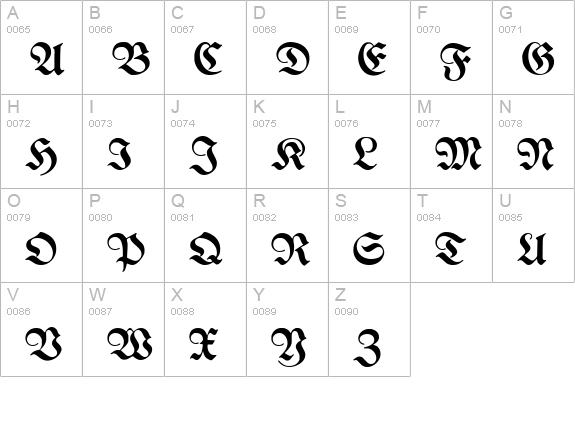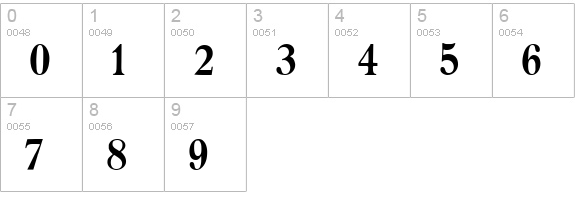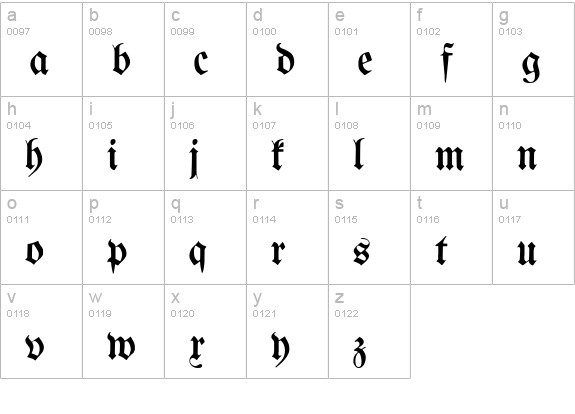
Proclamate Light Light Font Details
Proclamate Light Light is a refined, elegant variant in the Proclamate typeface family \xE2\x80\x94 well suited to elegant body text, refined sub-headings, and luxury branding.